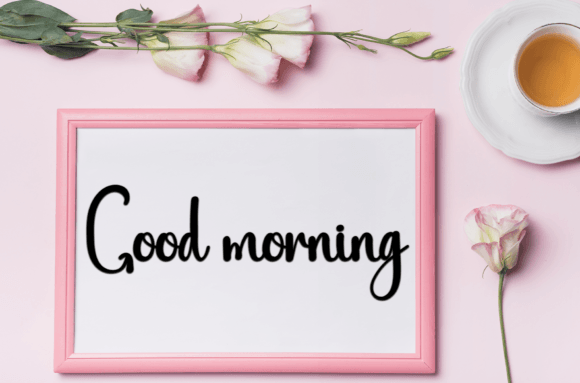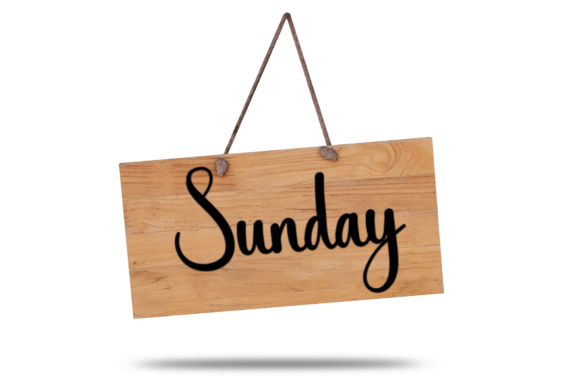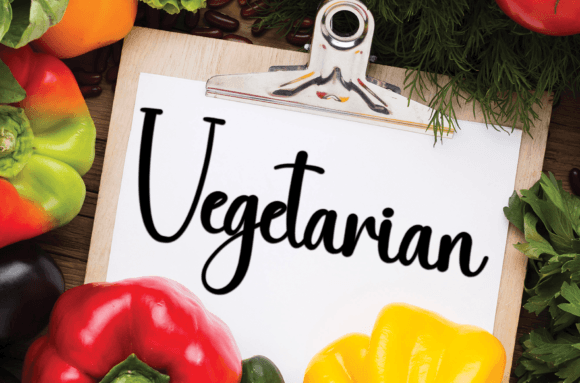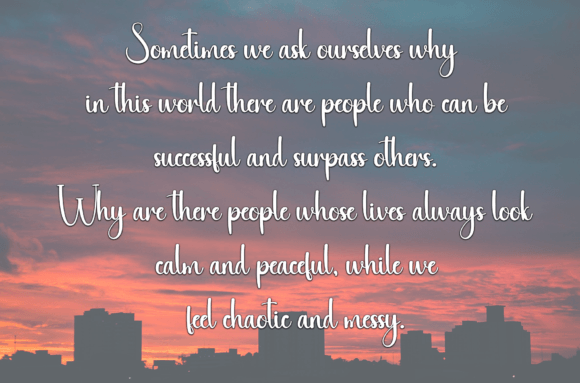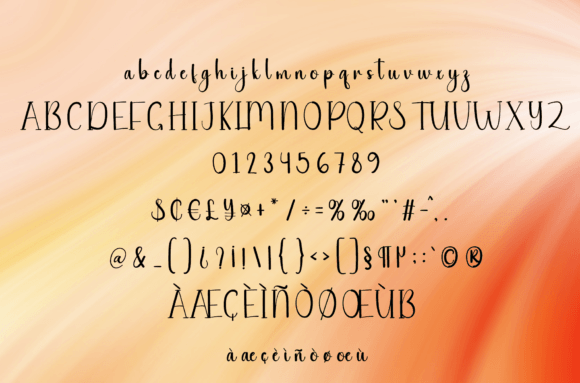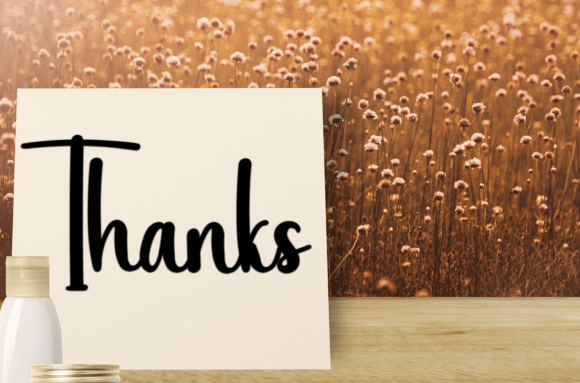
Handmade Market Font
About Handmade Market Font
Handmade Market font is a fun and friendly handwritten typeface designed to bring warmth and charm to your creative projects. Whether you’re working on crafts, digital designs, presentations, or greeting cards, this font offers an approachable and inviting style that suits a wide range of uses.
Warm and Playful Handwriting Style
The appeal of Handmade Market font lies in its casual, relaxed strokes that create a natural, handcrafted look. Its friendly curves add a personal touch to your text, making it ideal for projects that need a joyful yet legible handwritten style. This balance ensures your message is clear while giving it a warm, playful vibe.
Versatile Applications for Handmade Market Font
This font is perfect for various design needs, including:
• Craft projects and DIY designs
• Digital artwork and social media graphics
• Presentation slides and marketing materials
• Greeting cards, invitations, and announcements
• Banners, posters, and promotional materials
Thanks to its versatility, Handmade Market fon works well on both print and digital platforms, making it a favorite among designers who want a handwritten aesthetic that is both friendly and professional.
Adding Personality and Warmth to Your Designs
Using Handmade Market fon brings an inviting and personal touch to your creations. It helps foster a sense of friendliness and connection with your audience, making your projects feel more approachable and memorable. The font’s playful yet clear style adds distinctive charm and character.
Why Choose Handmade Market Font?
• Casual and friendly handwritten style
• Easy to read with clear letterforms
• Versatile for multiple creative uses
• Adds warmth and personal character
• Suitable for print and digital media
Final Thoughts on Handmade Market Font
In summary, Handmade Market fon is a delightful and approachable handwritten typeface perfect for crafts, presentations, greeting cards, and digital designs. Its warm and friendly personality makes it an excellent choice for projects that need a personal, charming touch.